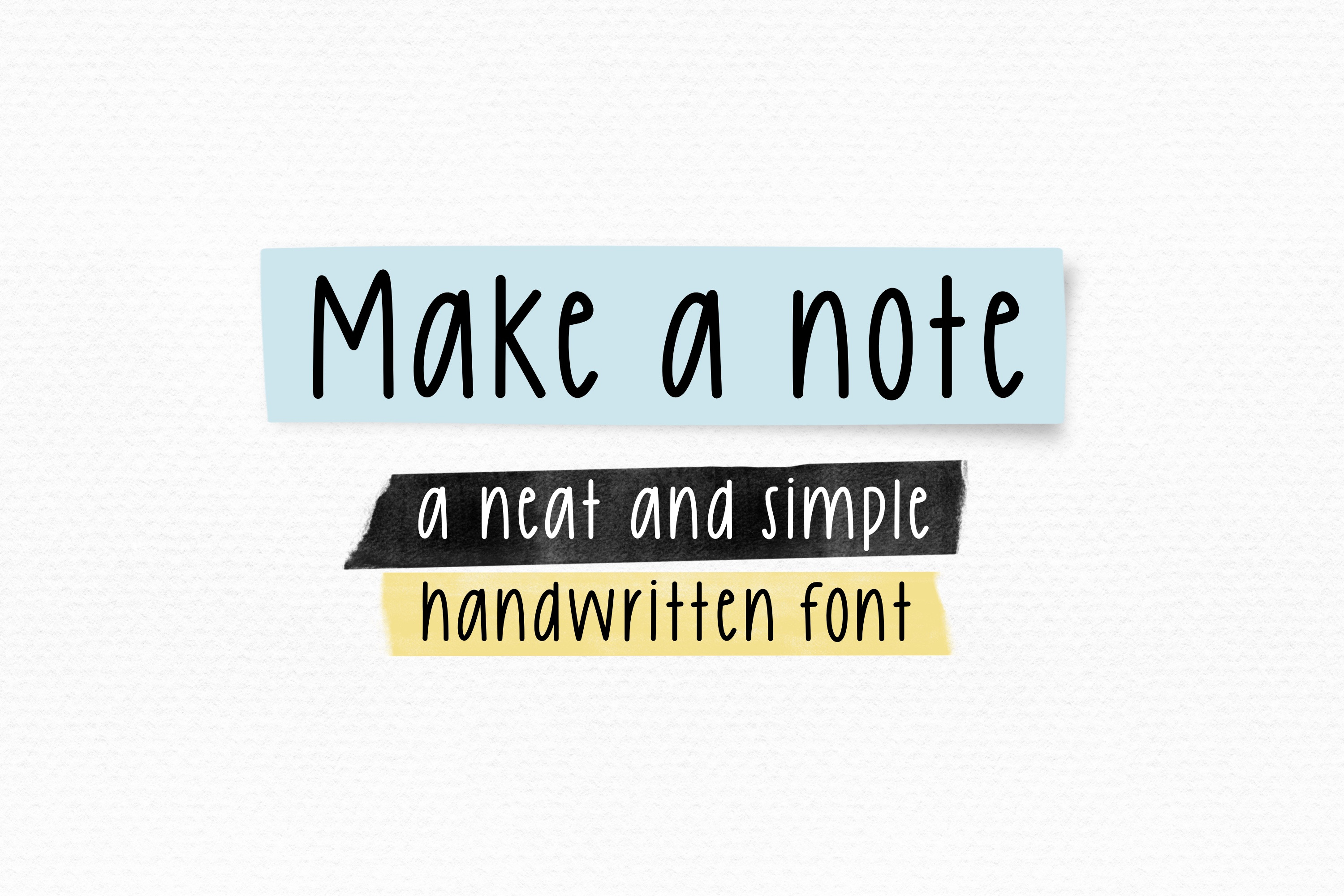
Make a Note - neat handwriting font
Make a Note, a natural handwriting font. You can use this font in various projects - blog posts, digital planner, invitations, greeting cards, planners, photo albums, decorations and much more. Thank you :)